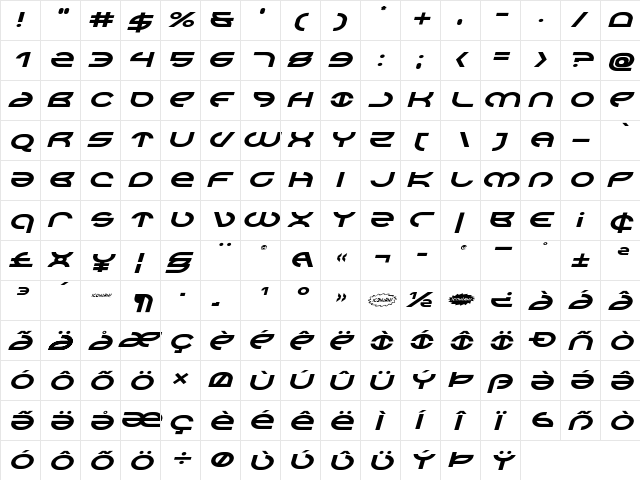
Aetherfox Expanded Italic Expanded Italic
Design Context for Aetherfox Expanded Italic Typeface
Aetherfox Expanded Italic is a composed and adaptable typeface that performs quietly and consistently across a wide range of design contexts. The slanted form adds forward momentum and visual energy.